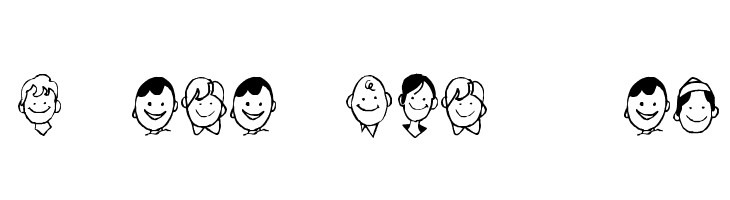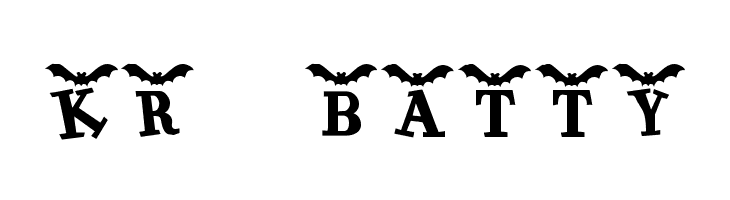
A playful font with letters inside balloon shapes, perfect for festive designs.
A decorative font resembling bamboo sticks with a three-dimensional effect.
A bamboo-inspired decorative font with textured, organic strokes.
Hand-drawn cartoon boy faces in a playful dingbat style.
Whimsical dingbat font of cartoon girl faces.
A playful, bat-themed decorative font ideal for Halloween designs.
A playful, bat-themed decorative font perfect for Halloween designs.
A decorative font with letters styled as barbecue grills, perfect for thematic designs.